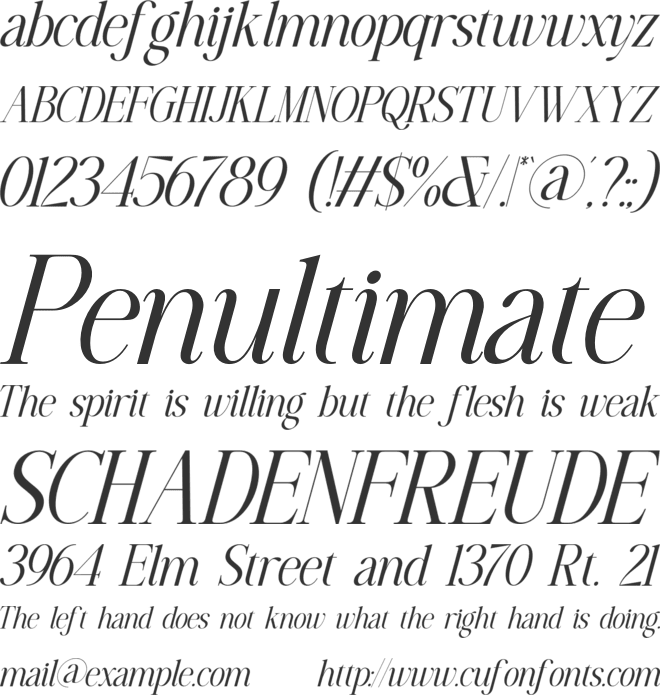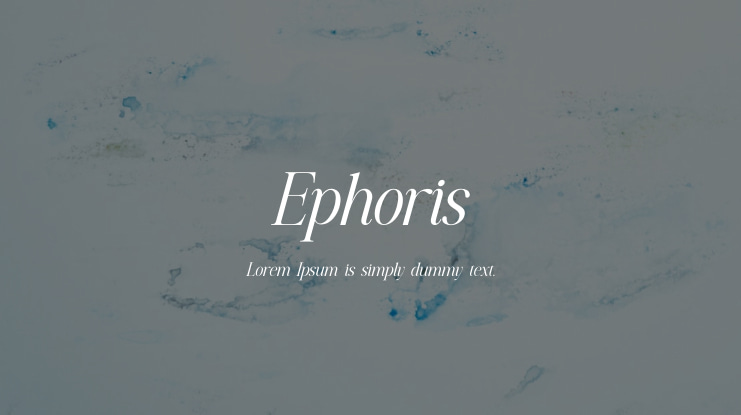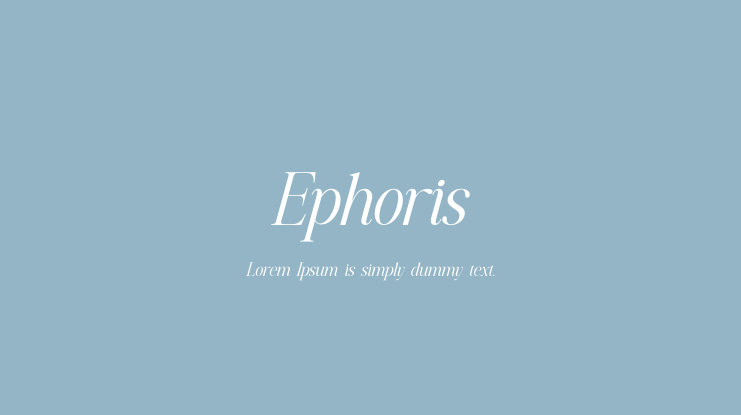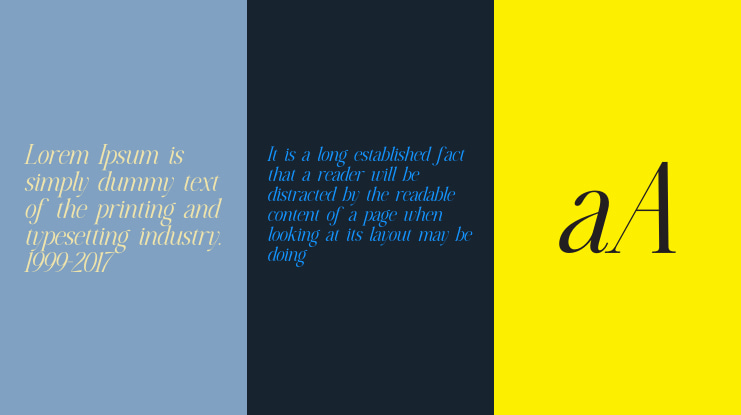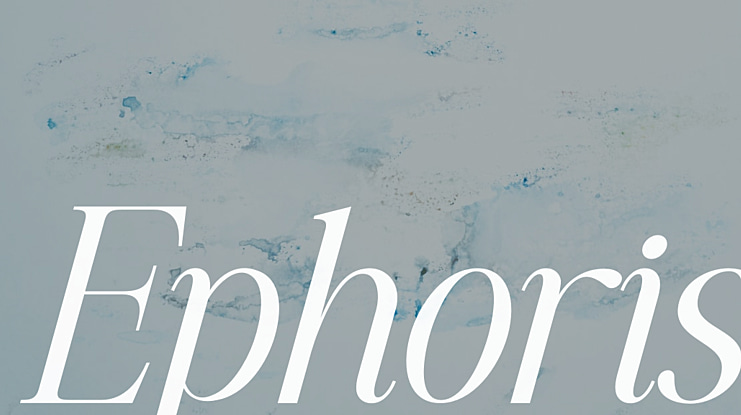
Ephoris Font Family
Ephoris is an elegant and warm Serif Display Font with a classic feel. It includes 8 regular fonts and 8 italics, ranging from thin to bold. With its good readability, Ephoris is perfect for both display and body text. Inspired by all the retro aesthetics that are making a comeback, Ephoris is perfect for creating nostalgic yet clean and elegant designs such as headlines, descriptions, logos, branding, magazines, product packaging, and invitations. With its clean lines and subtle curves, it adds an extra touch of class to any project. making this font the perfect partner for any project.